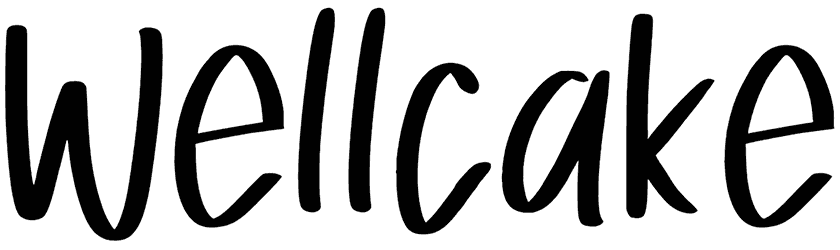
Wellcake Font
Wellcake’s powerful yet very simple design will increase your pulse! This handwritten font has been able to bring you extra power by avoiding extra decorations so that you can use it in all kinds of your projects.
We recommend using this font in any place where the content is the first word. There are no usual twists of script fonts, and it can highlight the meaning of your writings in different formats, such as posters, advertisements, or social media posts.